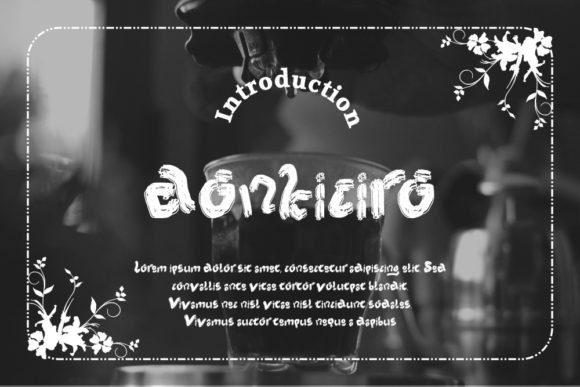
The Perfect Brush Stroke for Your Next Creative Project
Have you ever been working on a project and suddenly, a burst of inspiration hits you? Maybe it’s a quirky idea for a logo or a bold concept for a social media post. Whatever it is, it’s that moment of creative clarity that can make all the difference in bringing your vision to life.
One of the most crucial elements in capturing that perfect moment is the right font. That’s where the Donkiciro Font comes in – a stunning display font designed with a brush type that’s perfect for adding a personal touch to your designs. Whether you’re creating logos, social media posts, banners, or flyers, Donkiciro Font is the perfect companion to bring your ideas to life.
As a designer, you know how valuable a versatile and stylish font can be. Donkiciro Font is a game-changer, offering endless possibilities for creativity and self-expression. With its unique brush stroke design, it’s the perfect addition to any design project, elevating your work to the next level.
Donciciero Font Key Features
- Size: The font family includes 4 weights (Light, Regular, Medium, Bold) and 2 styles (Italic, Regular), offering a versatile range of options for designers and typographers.
- Unique Characteristics: The font features a unique, modern design with a blend of geometric and organic elements, making it ideal for use in contemporary branding, advertising, and editorial design.
- Language Support: Donciciero Font includes comprehensive language support, covering a wide range of languages and scripts, including Latin, Cyrillic, and Greek.
- Font Metrics: The font has a x-height of 0.45, an ascender height of 0.65, and a descender height of 0.35, making it suitable for use in a variety of text settings.
Donkiciro Font Review
First off, I want to say that I love the unique aesthetic of the Donkiciro font. ✨ It’s got a quirky, hand-drawn feel that’s perfect for adding a touch of whimsy to designs. The font is great for titles and headings, where you want to make a bold statement. ✨ The font’s irregularities also make it a great choice for creating a sense of movement and energy.
However, there are some limitations to consider. ⚠️ The font’s irregularities can also make it difficult to read in certain situations, particularly in smaller font sizes. ⚠️ Additionally, the font’s style may not be suitable for all types of content, such as body text or formal documents. ⚠️
- Unique, hand-drawn aesthetic
- Perfect for titles and headings
- Great for creating a sense of movement and energy
- Can be challenging to read in smaller font sizes
- May not be suitable for all types of content
Overall, I think the Donkiciro font is a great choice for designers who want to add a touch of personality to their work. With its unique aesthetic and versatility, it’s a great tool to have in your design arsenal.
Donkiciro Font is a bold and elegant script font, making it perfect for:
- Brand logos and typography
- Quote and phrase graphics
For the best results, use Donkiciro Font in bold and large sizes to make a statement. Experiment with different font combinations and styles to add visual interest to your designs.